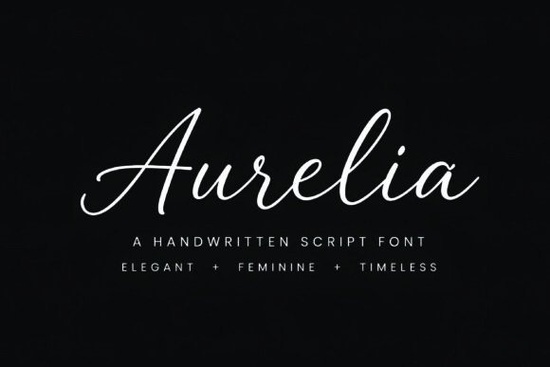
If you're looking for a script font that feels personal but still polished something that works just as well on a boutique wedding invitation as it does on a minimalist skincare label you’ll appreciate Aurelia Font. It’s not overly ornate or fussy, and it doesn’t try too hard to mimic handwriting. Instead, it balances delicate thin strokes with smooth, natural connections between letters giving it that effortless elegance many designers search for but rarely find in a single typeface.
What makes Aurelia different from other script fonts?
Most script fonts fall into one of two camps: either they’re highly decorative (with lots of swirls and flourishes) or they’re so minimal they lose character. Aurelia sits comfortably in the middle. Its letterforms are refined but not stiff, feminine but never fragile. You can use it at larger sizes for headlines without it feeling overwhelming and at smaller sizes for body text in invitations or packaging labels, where readability still holds up.
It’s also designed with real-world use in mind. Many handwritten-style fonts break down when scaled or converted to outlines, but Aurelia maintains clean curves and consistent spacing across weights and sizes. That’s especially helpful if you’re preparing files for print-on-demand services or sending assets to a local printer.
Where does Aurelia work best?
This font shines in contexts where tone and authenticity matter:
- Wedding stationery from save-the-dates to ceremony programs where couples want something timeless, not trendy.
- Small business branding, especially for wellness, beauty, or lifestyle brands aiming for warmth and sophistication.
- Social media graphics, like Instagram story quotes or Pinterest pins, where legibility on mobile screens is key.
- Packaging design for artisanal goods think candles, teas, or handmade soaps where subtle luxury helps products stand out on shelves or online.
Because it pairs well with clean sans-serifs (like Montserrat or Poppins), it’s easy to build a balanced typographic system without needing multiple script options. If you’ve ever spent too long trying to match a secondary font to your main script, Aurelia simplifies that step.
How does it compare to other popular Creative Fabrica script fonts?
Aurelia shares some DNA with other well-loved scripts but each has its own voice. For example, Van Marigella leans more romantic and calligraphic, with stronger contrast between thick and thin strokes. Heartberry is bouncier and friendlier great for playful kids’ products or cheerful greeting cards. If you need something ultra-casual and relaxed, Baby Handwrite delivers that soft, unstructured charm. And for classic bridal projects, Rose Cake adds gentle floral flair, while Wedding Font offers a broader collection of coordinated styles.
None of these are “better” they’re just different tools. Aurelia fills a specific gap: modern elegance with quiet confidence. It doesn’t shout. It invites.
Practical tips for using Aurelia effectively
Here’s what works well in practice:
- Use OpenType features when available like ligatures or alternate characters to add subtle variation and avoid repetition in longer text blocks.
- Adjust letter-spacing slightly (+10–20 units) for display use. Tighter spacing often looks better in small caps or all-lowercase settings.
- Avoid all-caps usage unless stylized it’s designed for lowercase flow, and forcing uppercase breaks its rhythm.
- Test on both light and dark backgrounds. Its thin strokes look lovely on cream or off-white paper, but may need slight stroke weight adjustment for digital use on dark mode.
If you’d like to see how Aurelia fits into real design workflows, check out examples from designers who’ve used it for Aurelia Font on Creative Fabrica especially those tagged with “branding” or “wedding.” You’ll notice how often it appears alongside muted color palettes and generous white space, reinforcing its quiet strength.
Before you download
Ask yourself:
- Does my project benefit from a script that feels intentional not rushed or overly casual?
- Will I be using it mostly for short phrases (logos, headers) or longer text (invitations, product descriptions)?
- Do I already have a complementary sans-serif or serif to pair it with or will I need to choose one?
Next step: Try pairing Aurelia with a simple geometric sans-serif in a mockup even just a logo lockup or social post. See how it feels. If it reads clearly, looks balanced, and matches the mood you’re after, you’ve probably found your font.